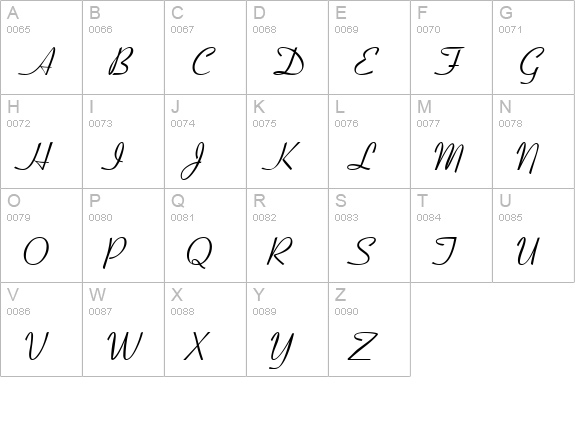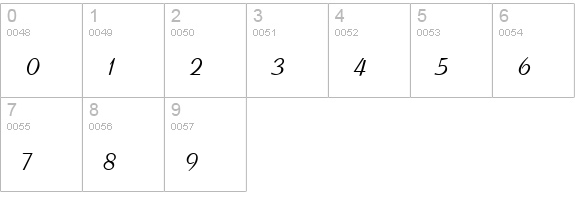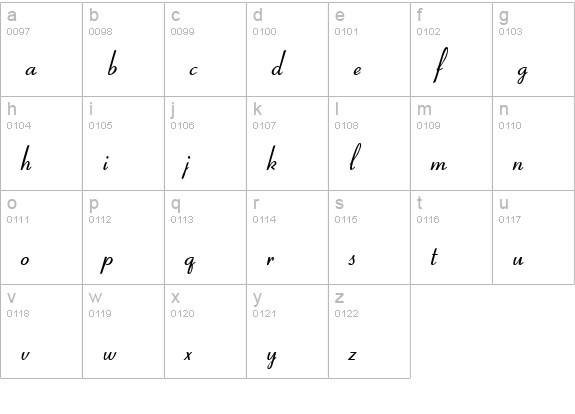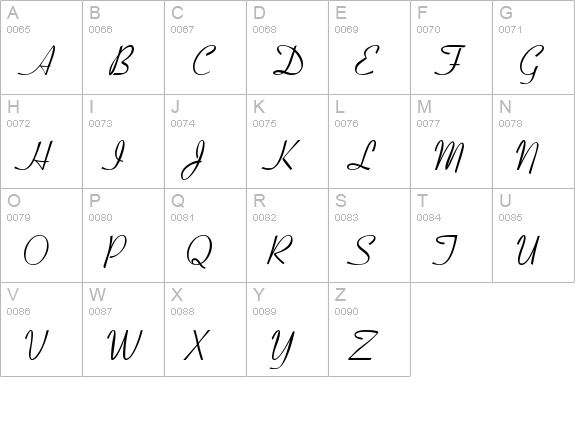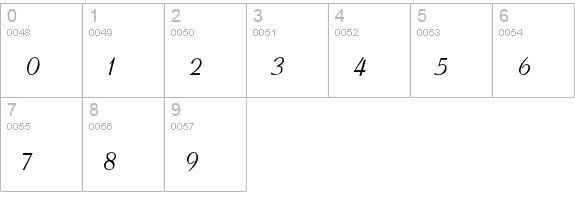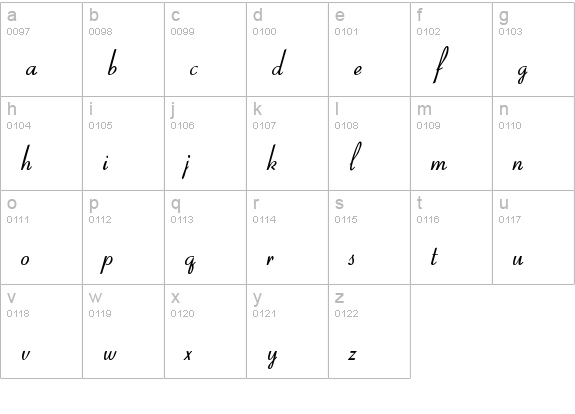
Aspire DemiBold Font Details
Aspire DemiBold is a sub-bold, structured variant in the Aspire typeface family \xE2\x80\x94 well suited to sub-headlines and emphasised passages.
Introducing Aspire DemiBold, a font that exudes elegance, modernity, and versatility. With its strong and bold letterforms, Aspire DemiBold commands attention and adds a touch of sophistication to any design project. This font is perfect for branding, headlines, logos, and any other creative endeavor that requires a bold statement. The beauty of Aspire DemiBold lies in its seamless balance between classic and contemporary design elements. Its clean lines and refined curves give it a timeless appeal, while its bold weight adds a contemporary twist. This font effortlessly captures attention and leaves a lasting impression on your audience. But what sets Aspire DemiBold apart from other fonts is that it is not only visually stunning, but it is also freely available to download at FontsMarket.com. Yes, you read that right – Aspire DemiBold can be yours without any cost. This makes it the perfect choice for designers, creatives, and enthusiasts who want to elevate their projects without breaking the bank. Whether you are working on a personal project or a professional endeavor, Aspire DemiBold is here to help you make a statement. Its versatility allows it to shine in various contexts, from print to digital, from small to large sizes. Its legibility remains impeccable, even in challenging conditions, ensuring that your message is delivered with clarity and impact. With Aspire DemiBold, you have the power to create eye-catching designs that leave a lasting impression. So why wait? Download Aspire DemiBold for free at FontsMarket.com and unlock limitless possibilities for your next project. Embrace the elegance, embrace the boldness, and let your creativity soar with Aspire DemiBold.